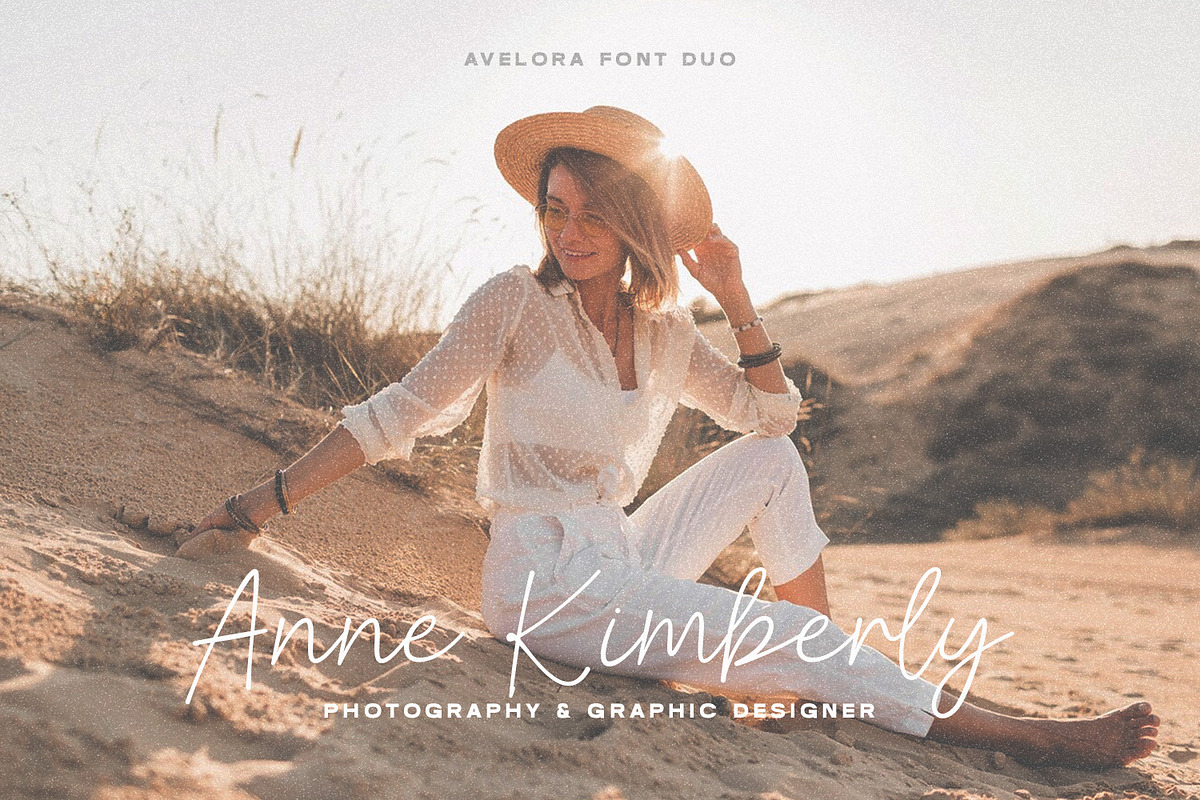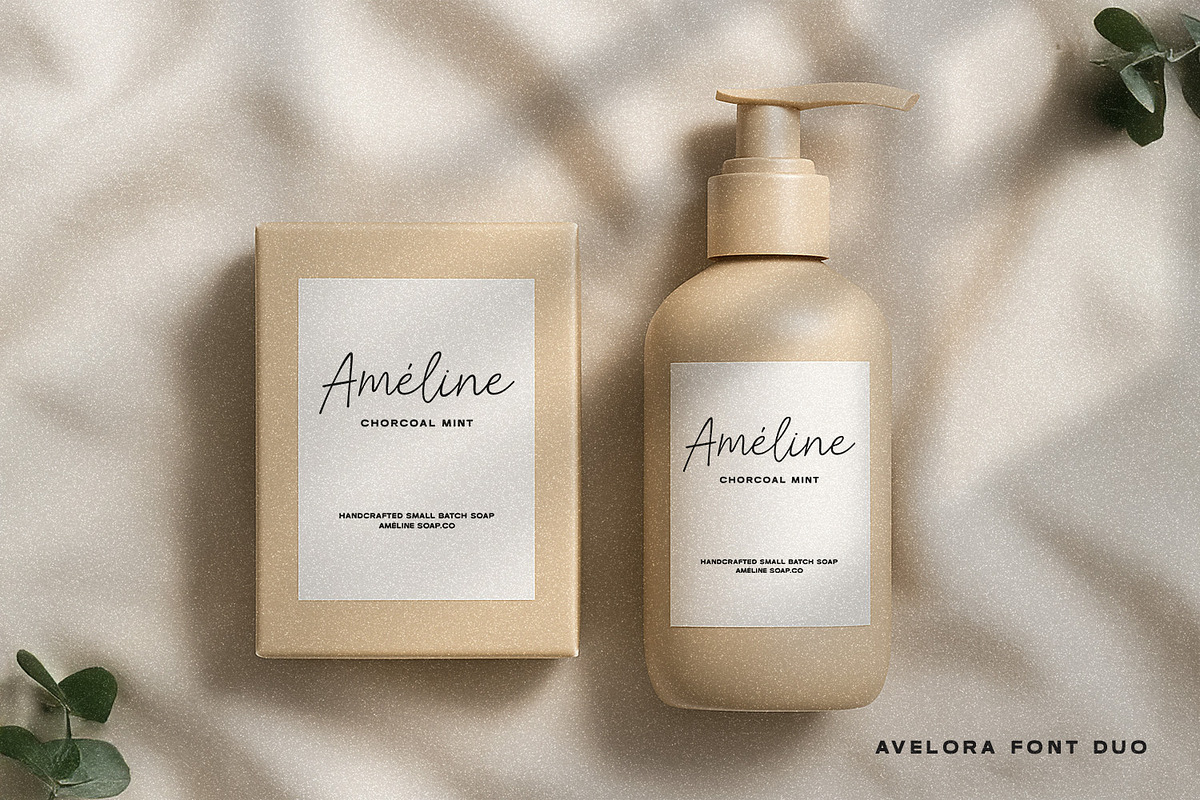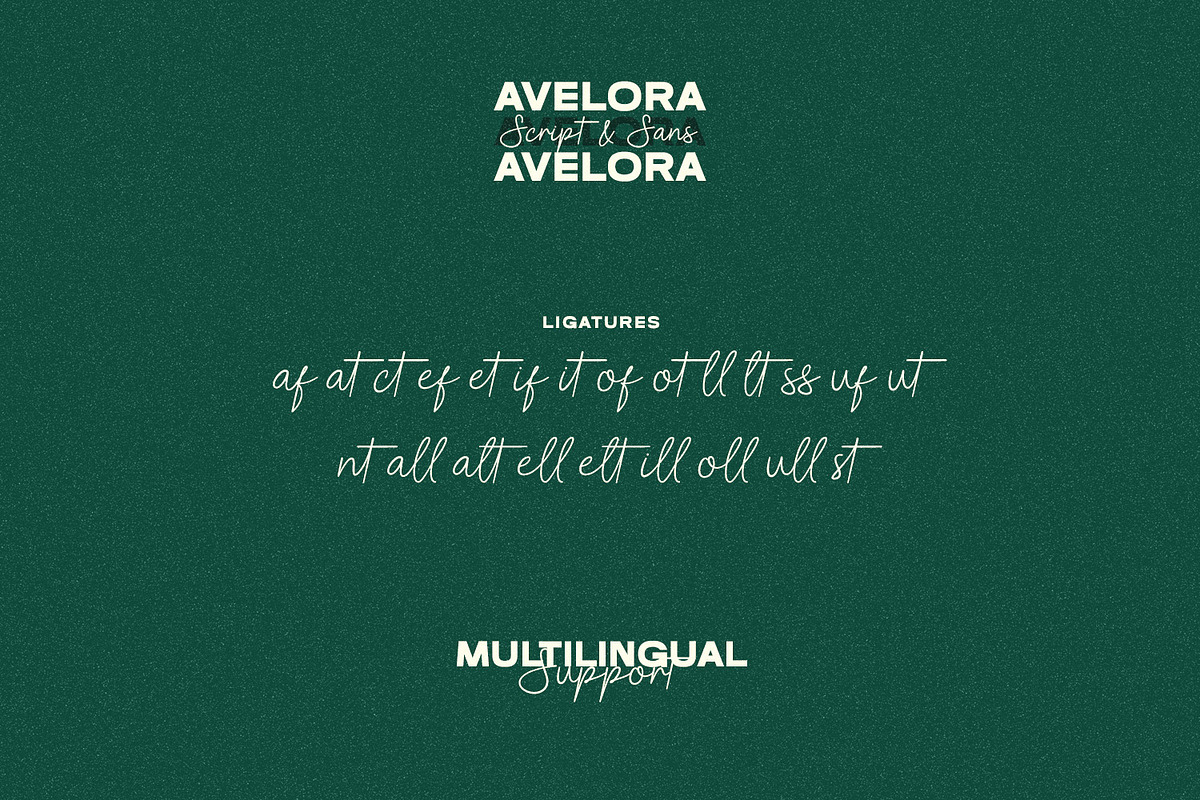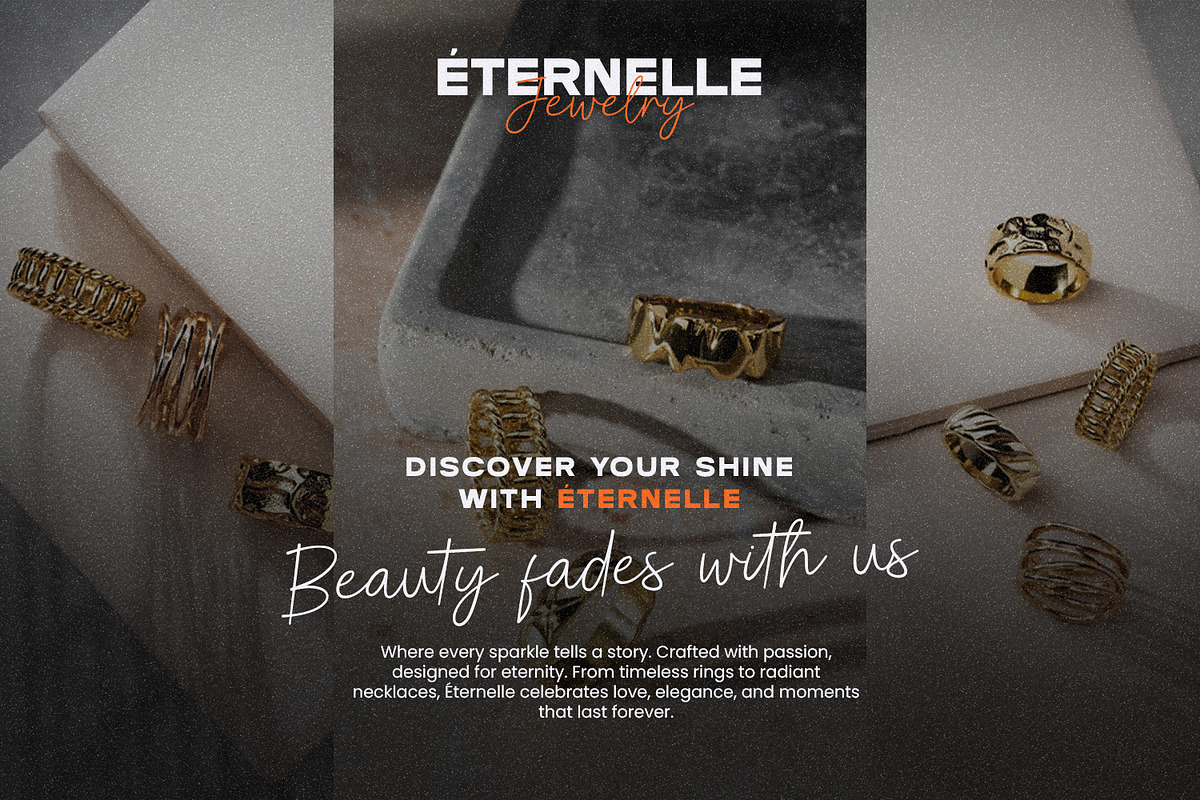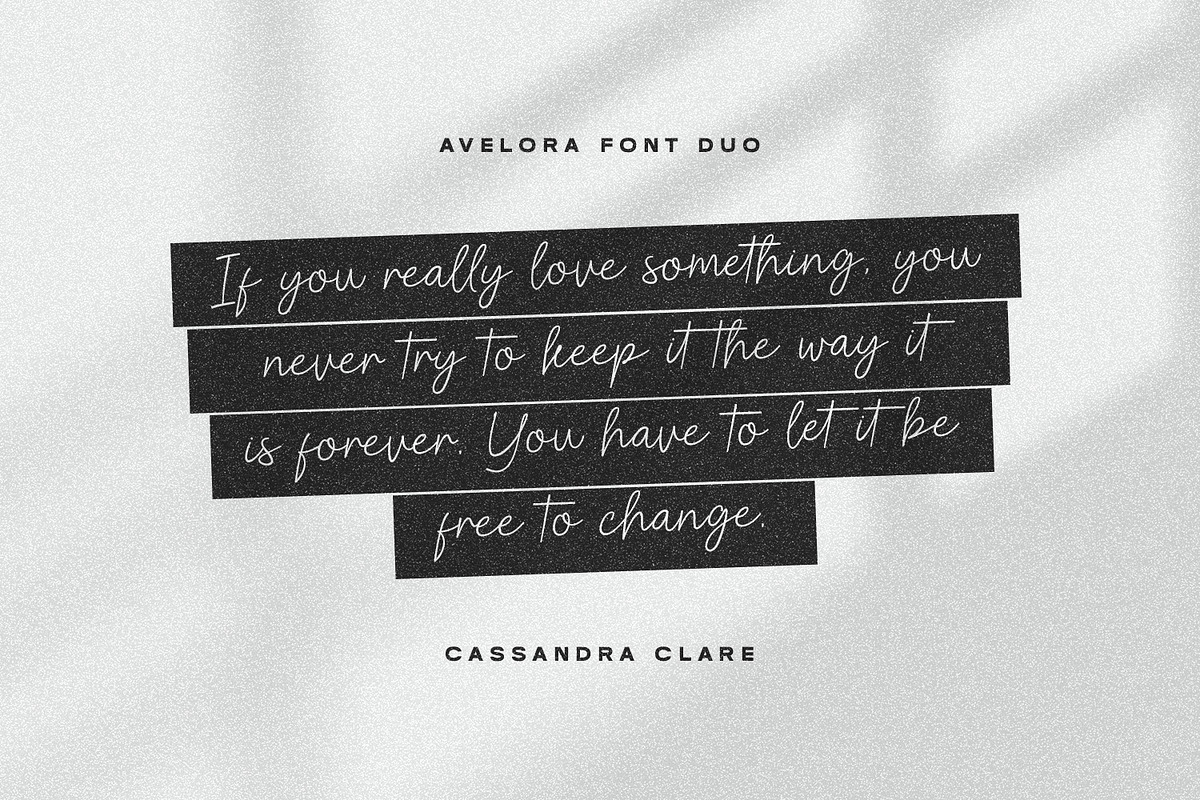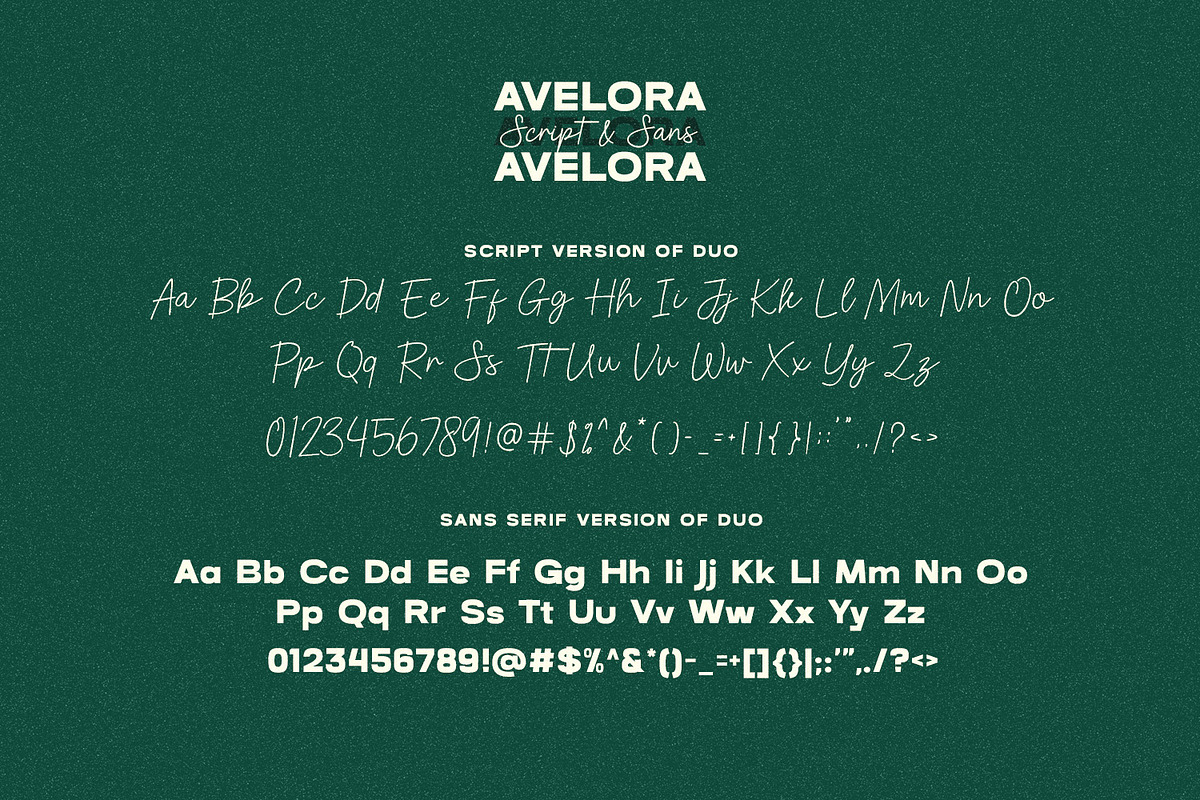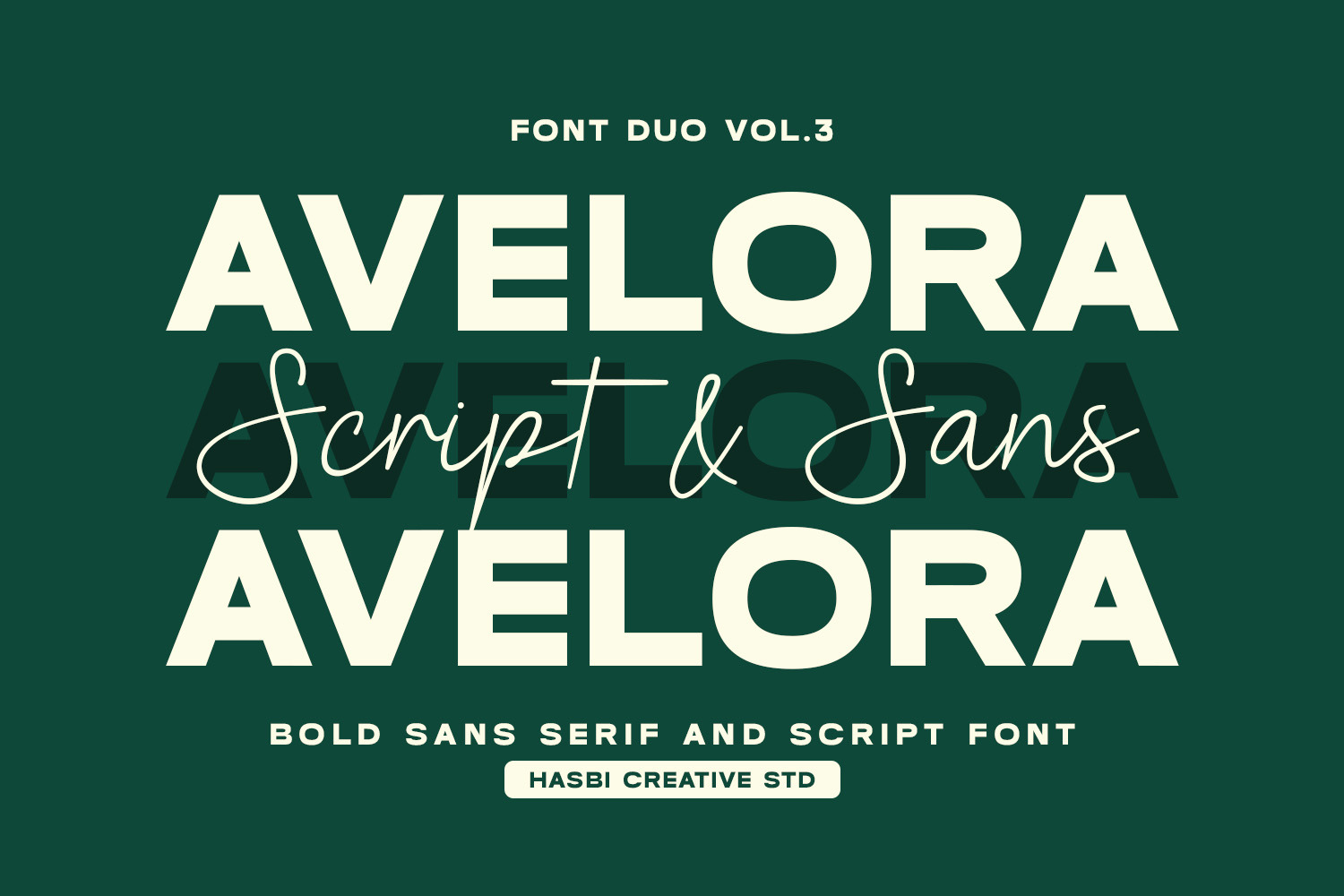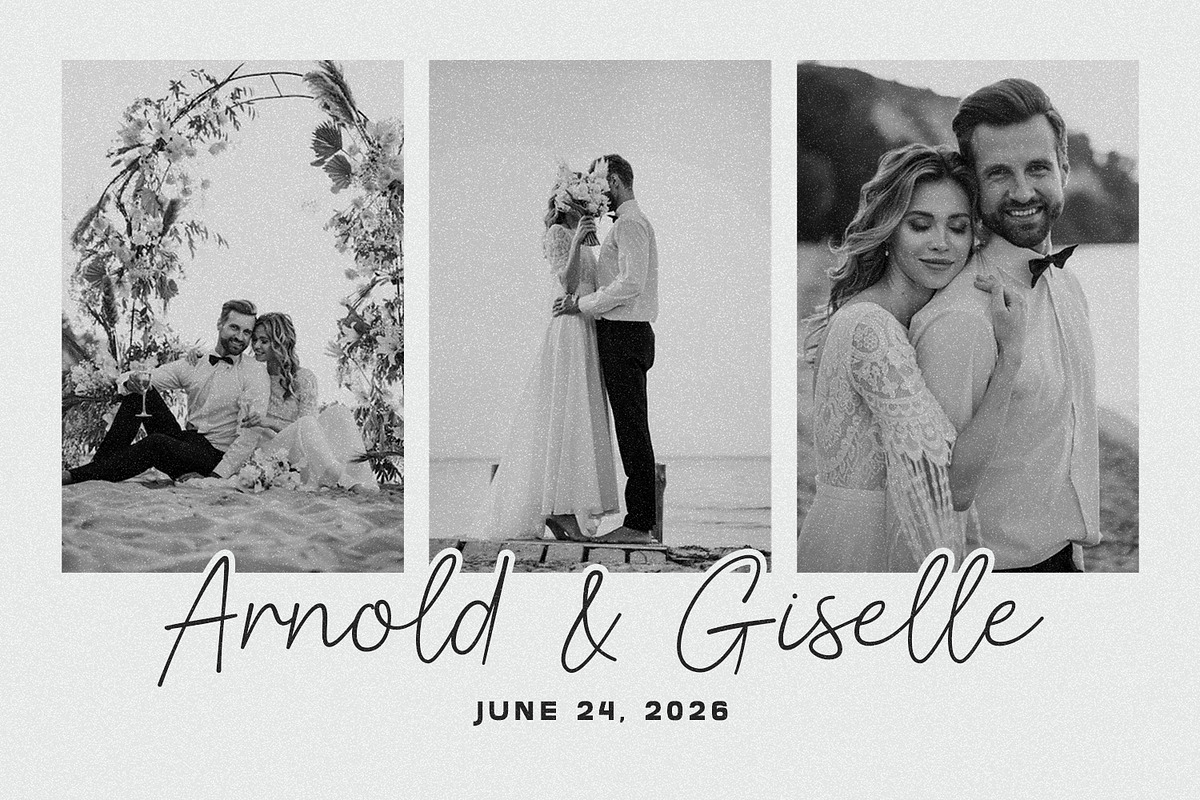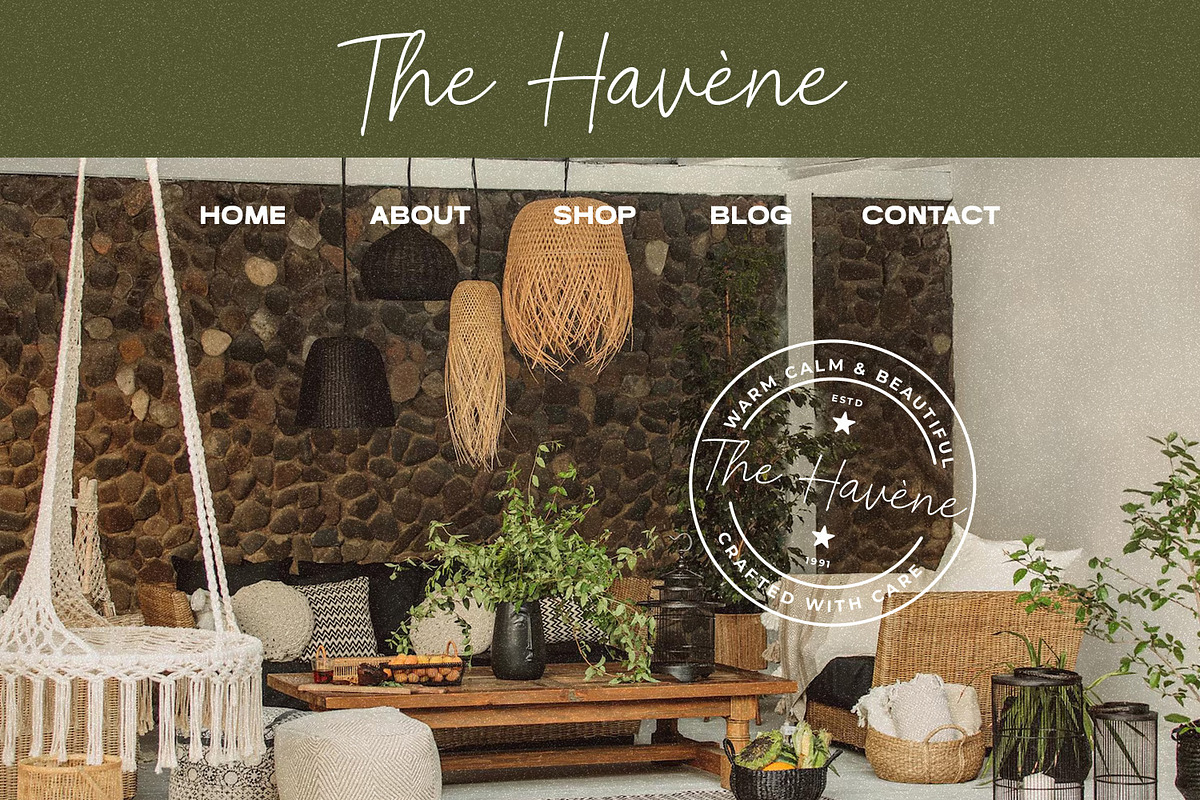
Avelora - Elegant Script & Sans Font
Avelora Font Duo is a stylish and versatile typeface combination featuring an elegant handwritten script and a clean geometric sans serif. Designed to balance sophistication with readability, Avelora is the perfect choice for branding, logos, wedding invitations, packaging, fashion, social media, and editorial design.
With its modern and feminine personality, Avelora brings a touch of luxury and timeless elegance to any project. The flowing script adds a creative, personal feel, while the sans serif provides a strong, professional foundation—making them work beautifully together or separately.
Uppercase & lowercase
Ligatures (Script)
- Logos & branding identity
- Instagram & social media posts
- Product packaging & labels
- Wedding invitations & stationery
- Editorial design & magazine headlines
If you’re looking for a modern font duo that is both stylish and versatile, Avelora will elevate your design projects with elegance and charm.